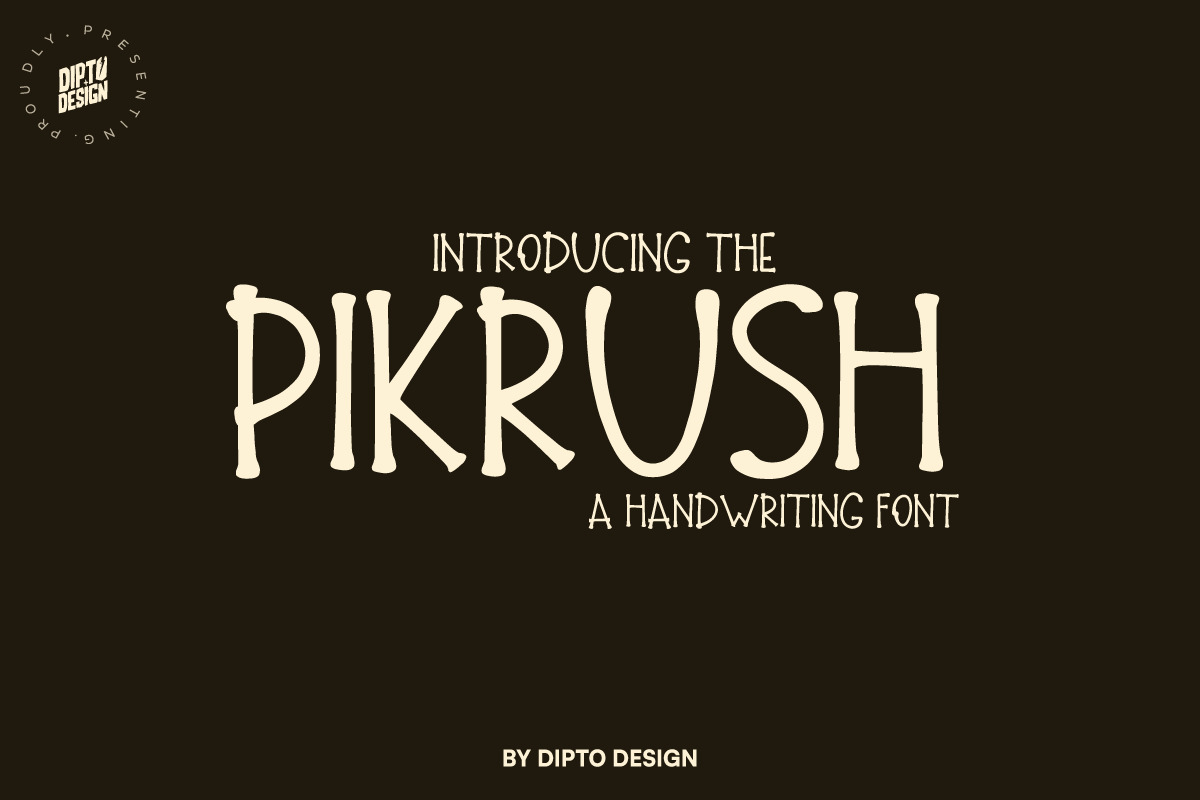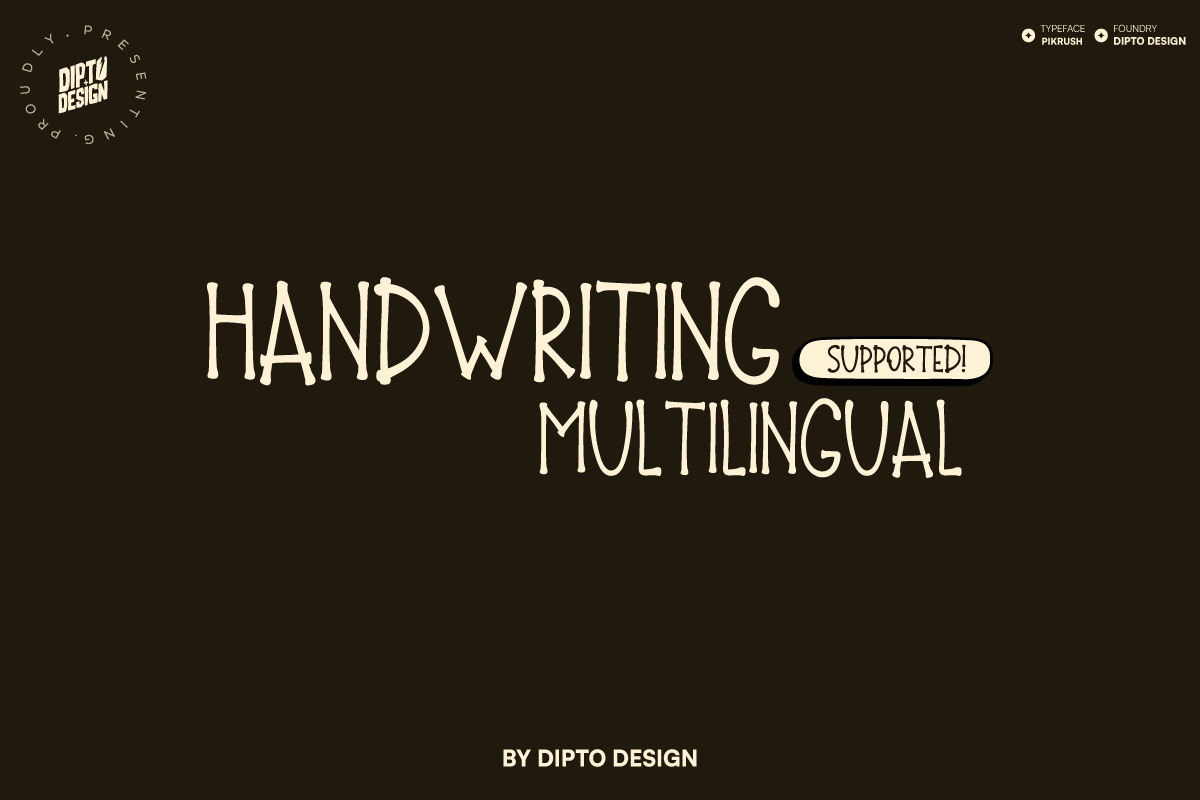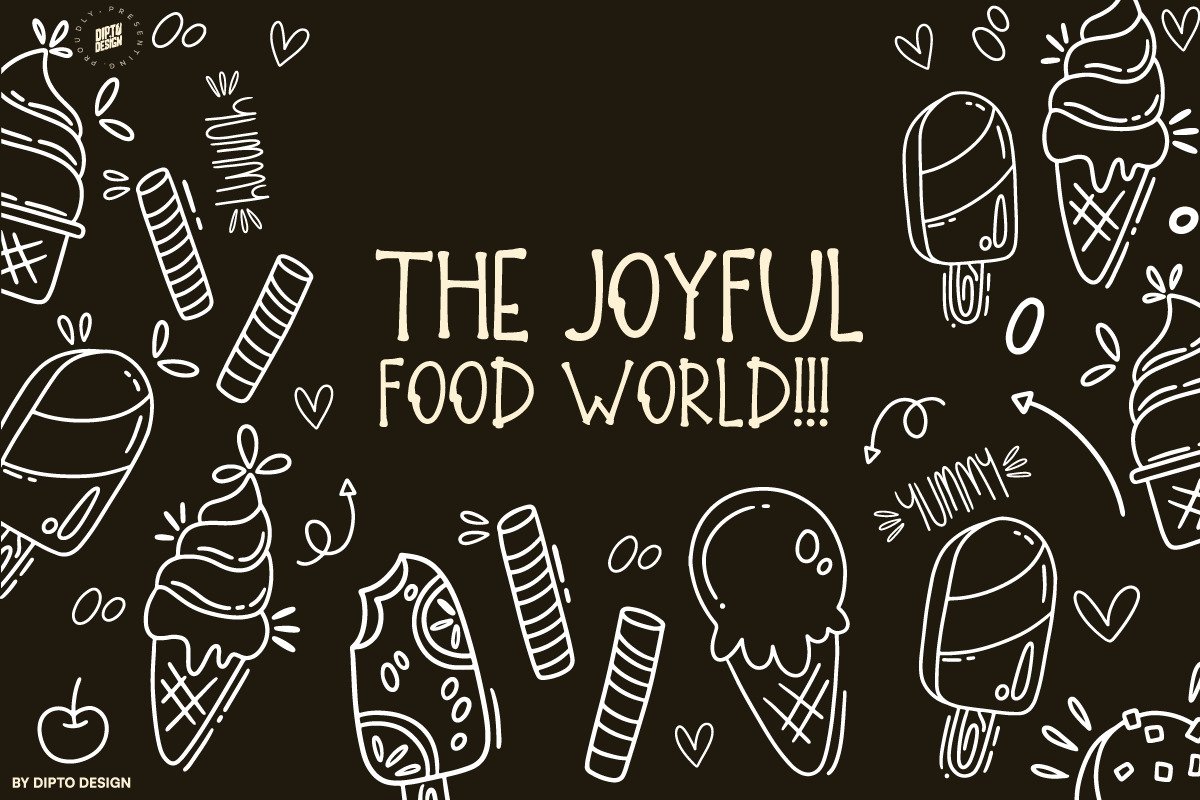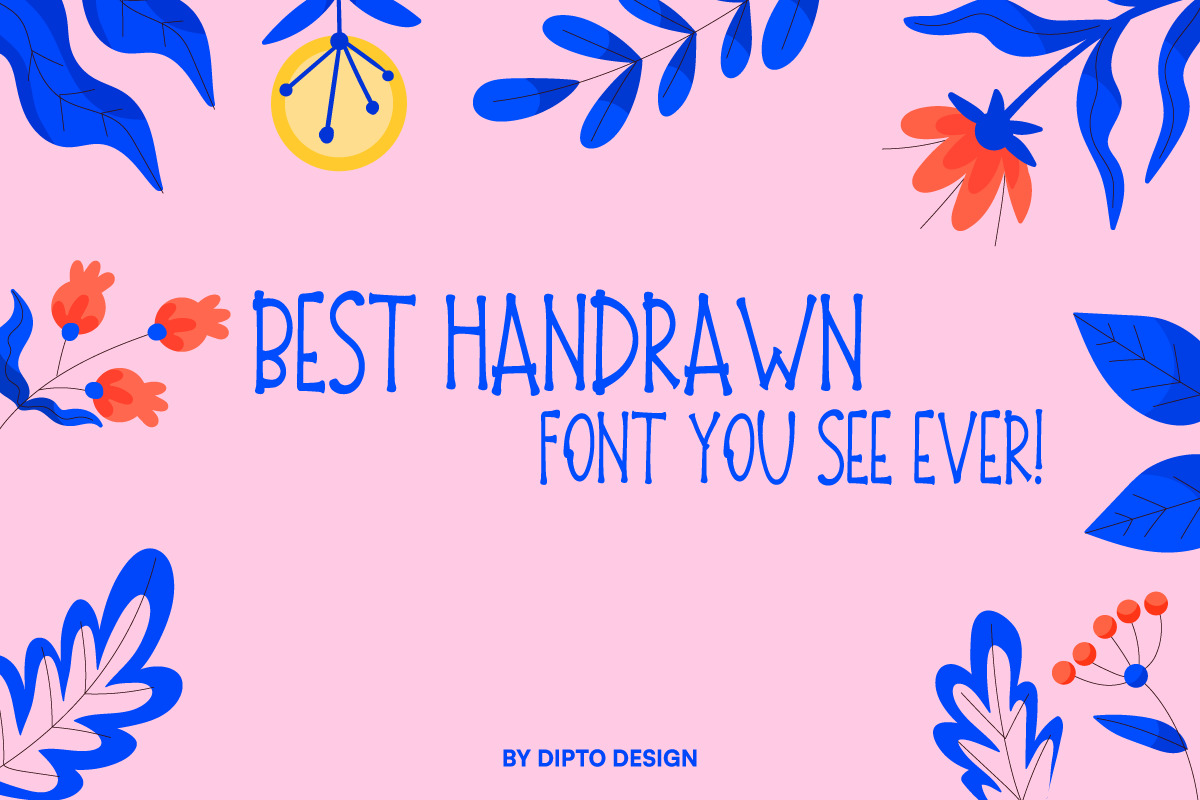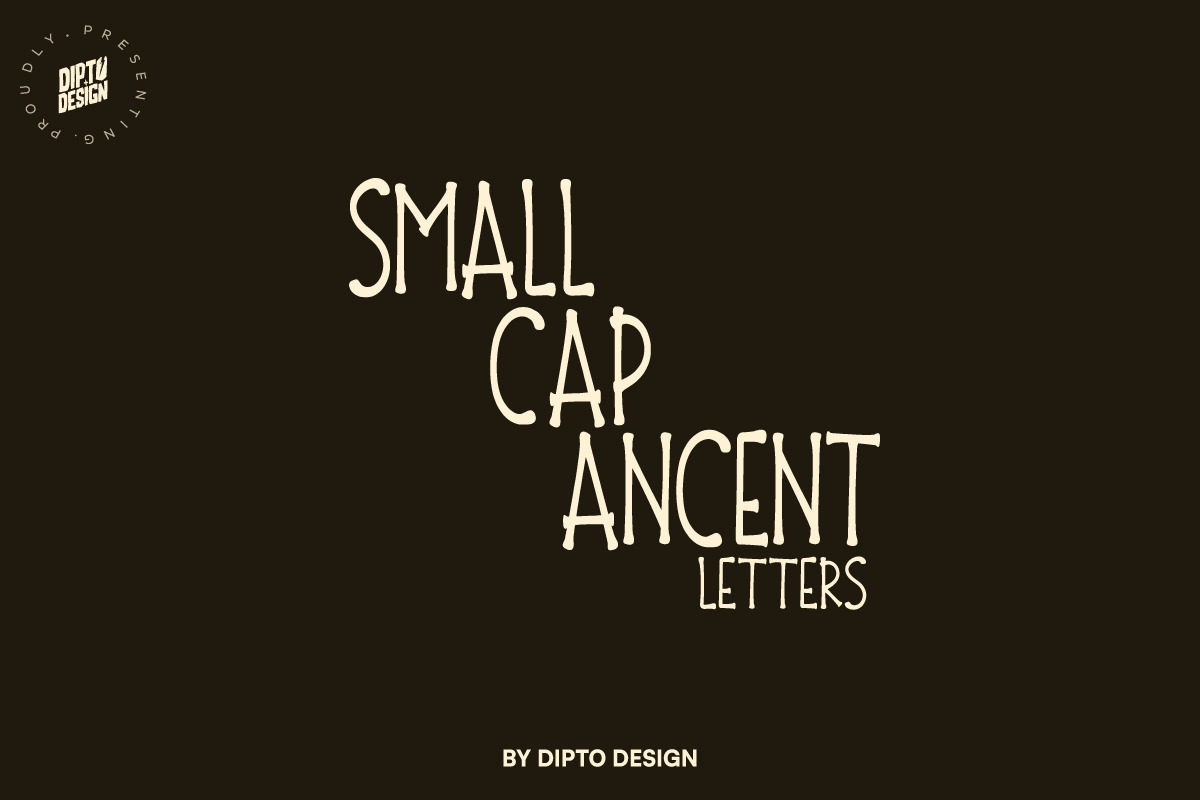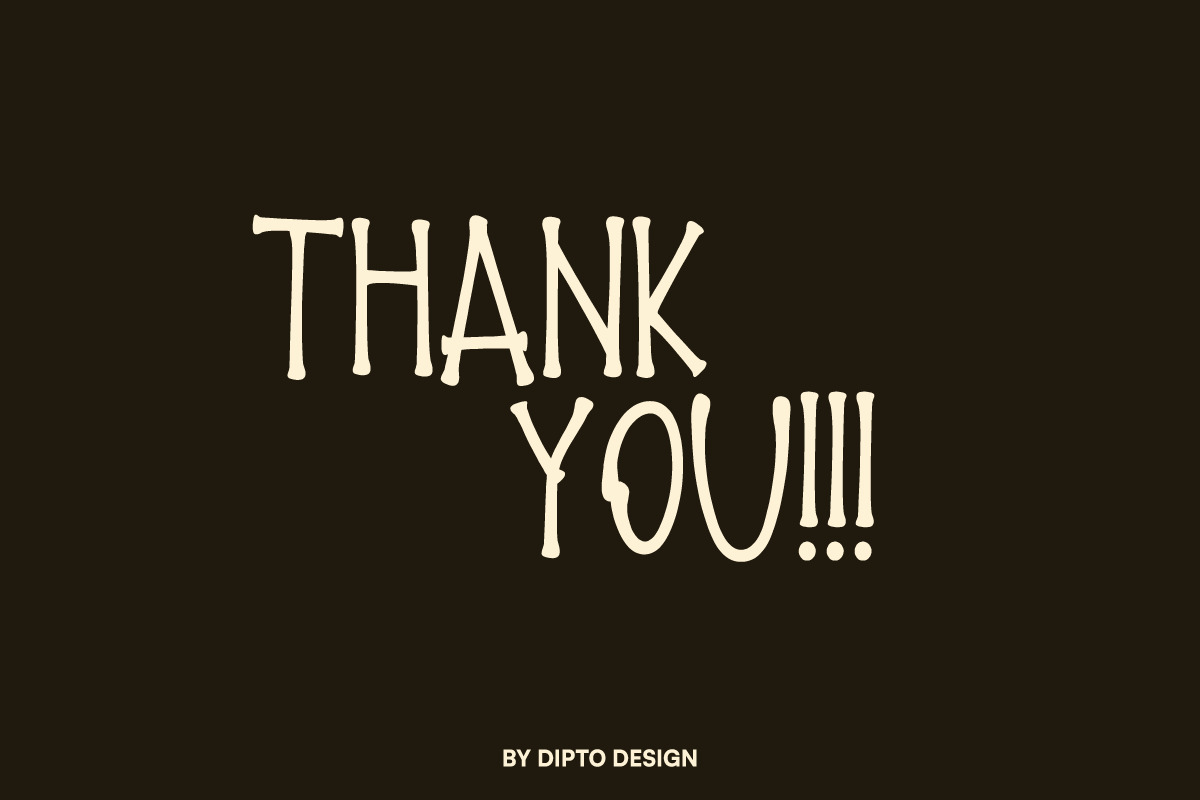
PikRush Font
Introducing "Pikrush" – a vibrant handwriting font exuding spontaneity. With OTF, TTF, EOT, WOFF, WOFF2 files, and PNGs in a ZIP, it's perfect for stylish branding. Embrace its dynamic energy and personalize your designs effortlessly!
Whether you're designing branding materials, apparel, or digital assets, "Pikrush" offers the versatility and authenticity needed to elevate your Nike-inspired projects.